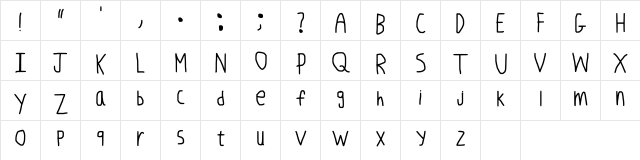
Kid Learning How To Write Regular
Design Context for Kid Learning How To Write Typeface
Kid Learning How To Write is a composed and adaptable typeface that performs quietly and consistently across a wide range of design contexts.